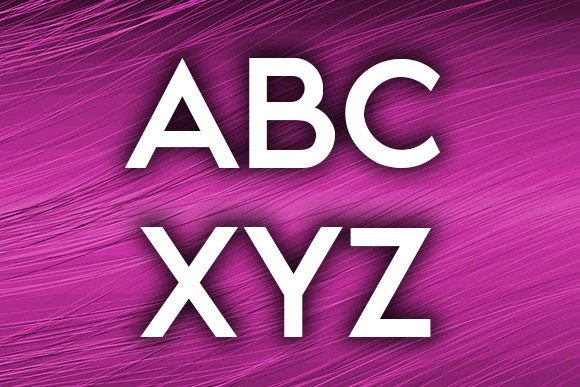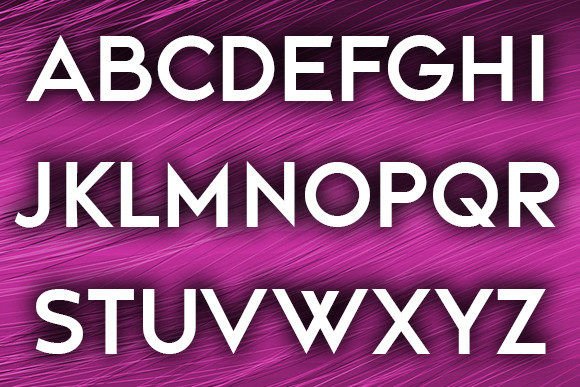
Introduction to Putz Font
Remember the moment when you’re working on a creative project and you need that perfect font to bring your design to life? The search is on, and you scroll through countless options until you stumble upon the one that makes your heart skip a beat – a font that’s both elegant and versatile. That moment is what we’re here to share with you today, as we dive into the world of the stunning Putz Font.
Putz Font is a high-quality, free download that’s about to become your go-to design resource. With its sleek and modern Sans Serif design, it’s perfect for creating visually stunning posters, flyers, and even t-shirts. Whether you’re working on a personal project or a client’s request, Putz Font is sure to elevate your design to the next level. And the best part? You can use it with a transparent background, giving you endless possibilities to get creative.
Key Features of Putz Font
- High-quality design resource with a unique, playful style suitable for creative projects.
Honest Review: Putz Font
As a designer, I’m always on the lookout for high-quality design resources that can elevate my creative projects. Recently, I had the chance to try out the Putz Font, and I’m here to share my honest review.
Here’s what I liked about the Putz Font: ✨
- It’s available in a range of weights, making it perfect for a variety of design applications.
- The font has a clean, modern aesthetic that works well for both digital and print projects.
- The font family is relatively small, with only a few weights to choose from.
Overall, I was impressed with the Putz Font’s quality and versatility. While it may not be the most extensive font family, it’s a solid addition to any designer’s toolkit. If you’re looking for a free, high-quality font for your creative project, the Putz Font is definitely worth checking out.